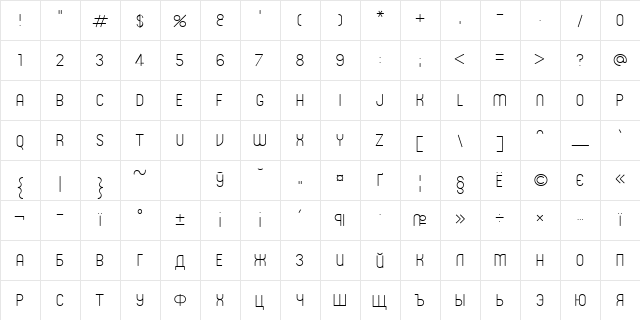
RonInset1 Light
Design Context for RonInset1 Typeface
RonInset1 takes a measured approach to typography — its balanced proportions and neutral character make it a reliable workhorse for both digital and print work. Its slender proportions lend an understated elegance to any composition.